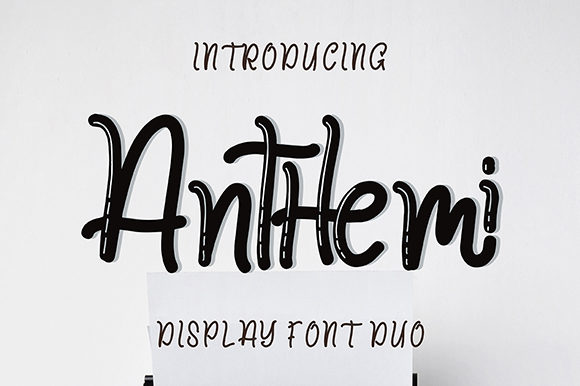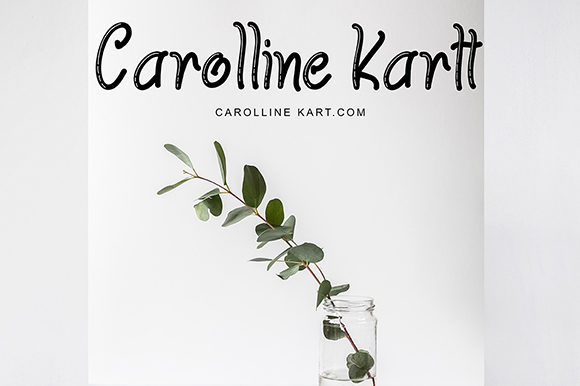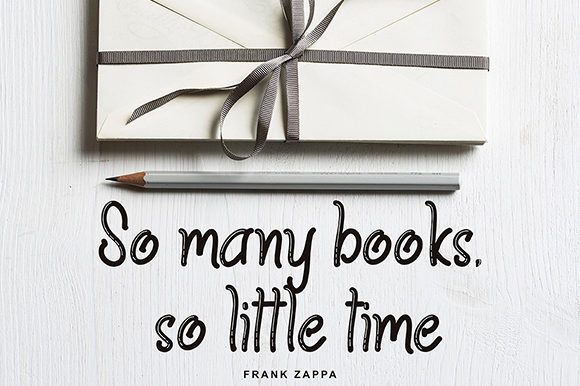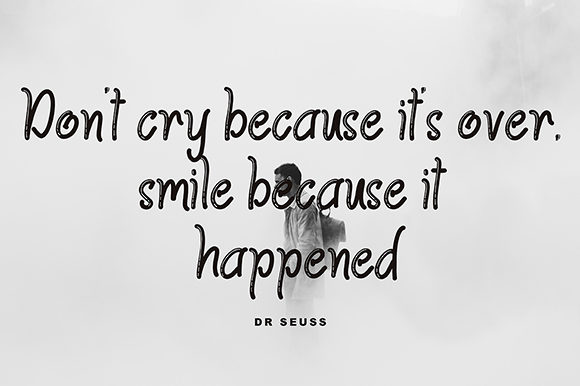
HomeScript FontsAnthemi Font Script Fonts Anthemi Font FacebookXPinterestWhatsApp Anthemi Font Poster 2 Anthemi Font Poster 3 Anthemi Font Poster 4 About Anthemi Font Anthemi is a fun and playful handwritten font with a bold feel. It will add a unique spark to any design project! DOWNLOAD ON CREATIVE FABRICAThis font is sold and delivered by Creative Fabrica. Font Canyon may earn a commission if you buy through this link. People also explored Darling Rosie Font Coffee Time Font Miroles Font Boxette Font Bandrek Font Voronoi Diagram Font Briston Eastern Forest Font Romeo Handwritten Font 282 0 TagsAnthemi Font Previous articleDettiruka FontNext articleFlower Adaline Font LEAVE A REPLY Cancel reply Comment: Please enter your comment! Name:* Please enter your name here Email:* You have entered an incorrect email address! Please enter your email address here Website: Save my name, email, and website in this browser for the next time I comment. Personal Use Free Catandra Script Personal Use Free Read more about this font Rembank Personal Use Free Read more about this font Short Message Personal Use Free Read more about this font Mama Personal Use Free Read more about this font BLOG The 10 Best Handwriting Fonts to Add Personality to Your Designs 10 of the Best Handwriting Fonts for Adding Personality to Your Designs There will undoubtedly be no other better choice than handwriting fonts to give... How to Install and Use Fonts on Windows, macOS, and Web Projects Modern Sans-Serif Fonts That Brands Love in 2025 Top 7 Google Fonts Alternatives for Faster and Privacy-Friendly Web Design (2025)